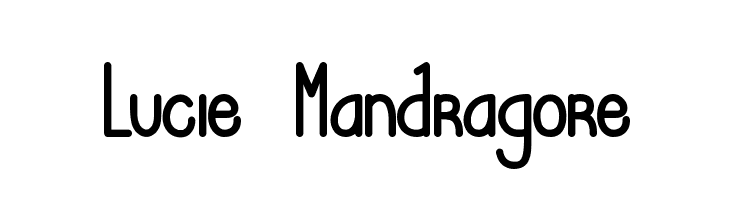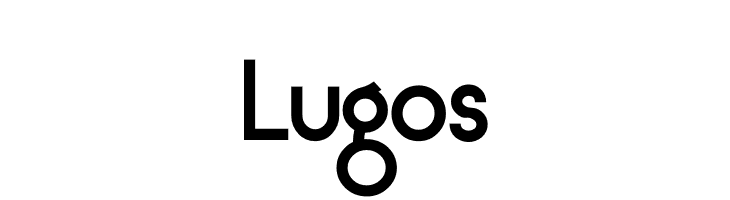
A playful, rounded font with consistent stroke width and a whimsical style.
An elegant, high-contrast script font with flowing, ornate characters.
A bold, brush-style font with dynamic, hand-drawn strokes.
A bold, expressive handwritten font with brush-like strokes and dynamic flow.
A bold, playful handwritten font with a whimsical and friendly style.
A jagged, angular font with a dynamic and edgy appearance.
A playful, whimsical handwritten font with smooth, flowing strokes.
A playful, handwritten font with bold, rounded strokes and a casual, informal style.
A playful, casual handwritten font with an informal and whimsical style.
A modern sans-serif font with rounded edges and balanced spacing.